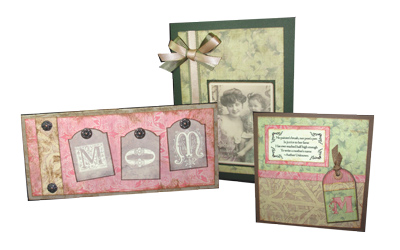
Be sure to check out this month's Creative
Corner to see examples of delightfully simple yet elegant
cards I made. Each card features elements from one Journaling
Delights set and are great examples of the array of possibilities.
Each card also features paper I printed at home from our
digital
Paper Packs and on one of the cards, I added an
extra touch by combining a Journaling Delight and the matching
alphabet onto one special embellishment. Working with Journaling
Delights and alphabets together give you the ability to
combine decorative accents with color fonts.
| Mother's
Day is just around the corner so now is the time to start
thinking about gifts and cards that help you tell Mom how
much she means to you. To get your creative juices flowing,
check out these three heirloom-style cards I created using
the alphabet
Mother, matching Journaling
Delight JDT Mother and Mother Paper Pack |
| MOM Card |
| This card features Mother
Paper Pack papers
Mother_1 and Mother_3, as well as clip art from the JDT
Mother.
By cutting apart the tags, I was able to add personality
to the card by placing the tags at odd angles. I inked
all of the paper edges to add to the heritage style and
added decorative brads (from Making Memories) to complete
the look. |
| M Tag Card |
A little bit of everything
comes together in this elegant Mother's Day greeting. Elements
include papers Mother_1, Mother_2 and Mother_3, a tag from
JDT
Mother and the alphabet
Mother. Creating a 'monogrammed'
tag is simple in the Creative
Delights Companion. Select
the tag from the JDT Mother and place it on the layout
page, adjusting the size as appropriate. From the alphabet
Mother, type 'M' and after placing it on the layout page,
adjust the size to fit the tag and drag into position on
the face of the tag. If necessary, right click on the 'M'
and select 'Bring to Front' to make the letter visible
on the tag. Enhance the vintage look by inking the paper
edges.
| Heritage Photo Card |
| Sweet and simple, this card was a snap to create,
using the Mother_2 paper from the Mother
Paper Pack and a
vintage photo from the clip art in JDT
Mother. A medium brown
distress ink adds color and age to the papers and layered
matching ribbons completes this classic greeting. |
Paper Packs and downloadable
.pdf
Tag sheets in colors and patterns to coordinate with
each Jillustration's Scribble Family
Bundle design and
will help you add color, texture and fun to your cards,
invitations, scrapbook layouts, gift tags and more.
Rani's Fiesta Fun Bundle |
Mexican
Folk Animals, musical
Mariachis,
beautiful Señoritas and fearless Matadors. Each design
comes to life in vibrant alphabets and matching Journaling
Delight sets, complete with title and photo boxes, tags,
borders, and clip art.
for the Creative Delights Companion program. This update
fixed several items including printing Journaling Delights,
rotating images and saving in .png format.